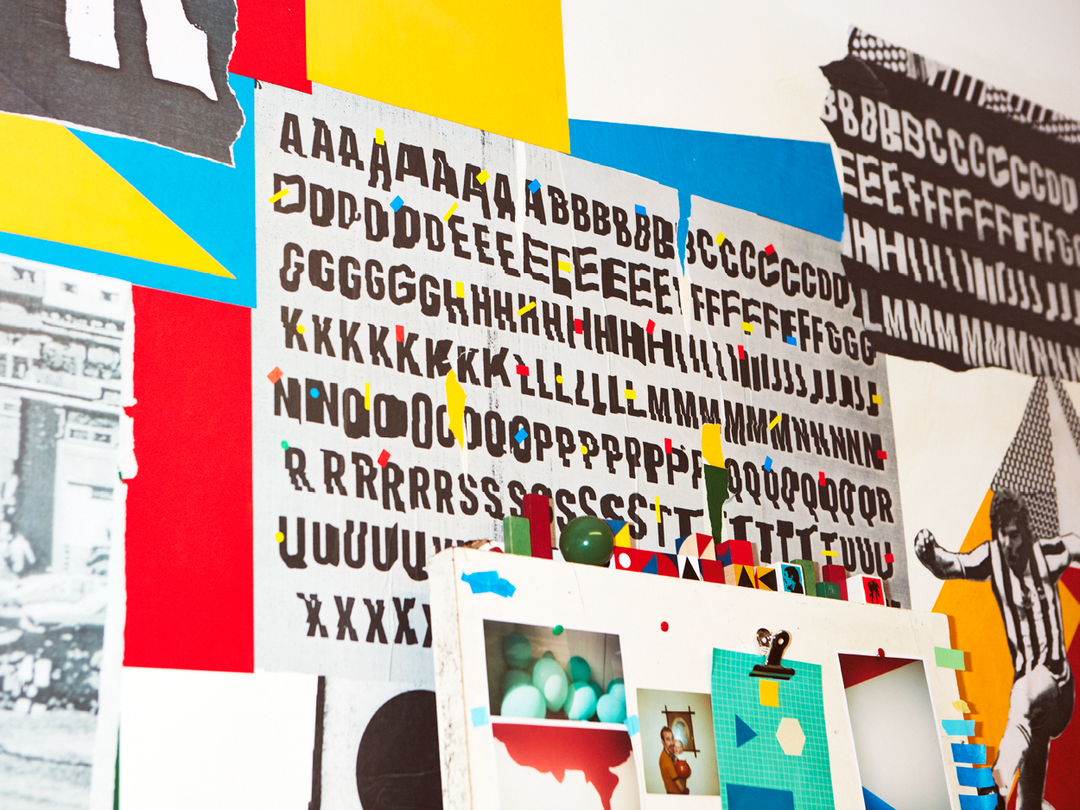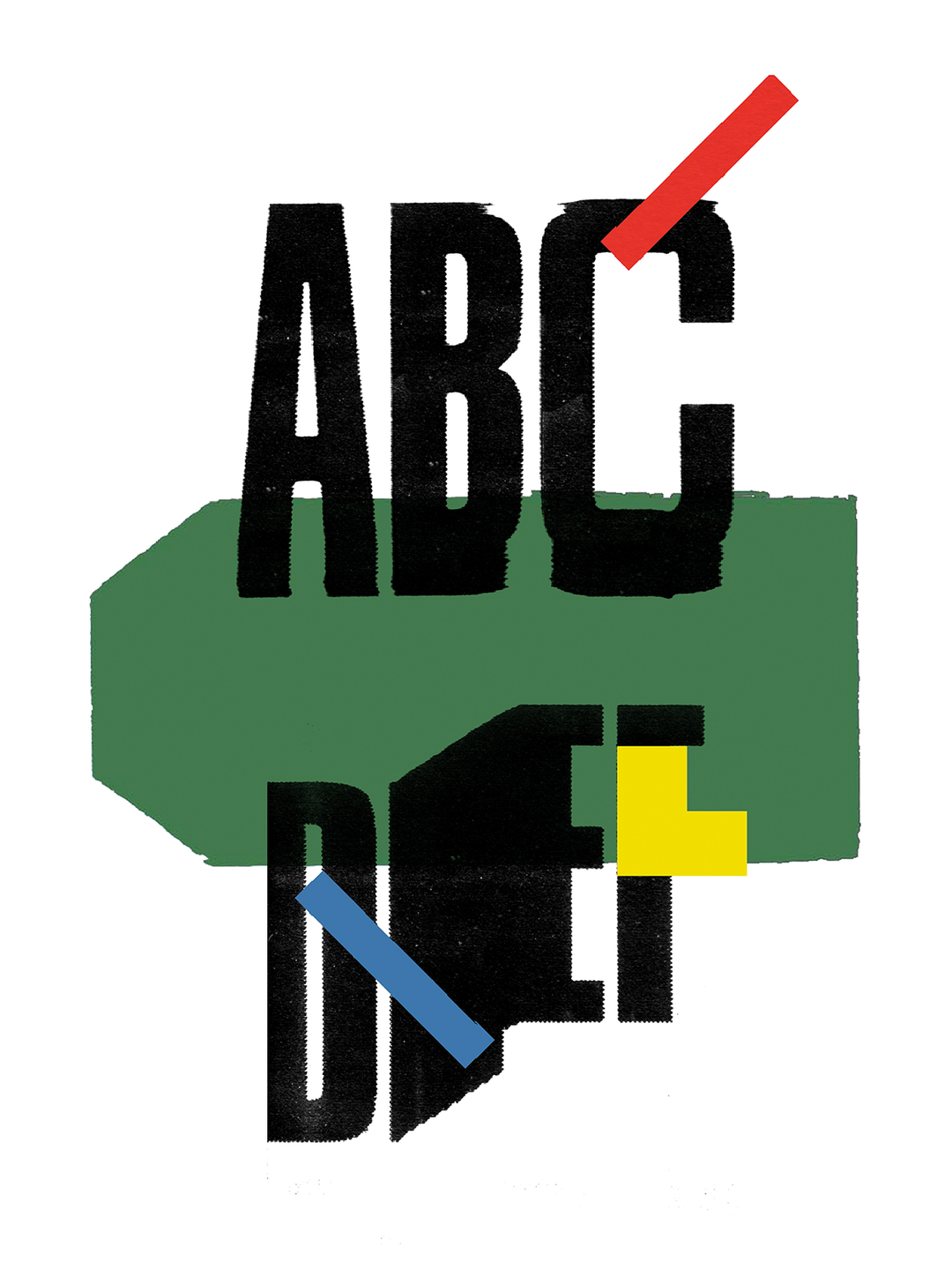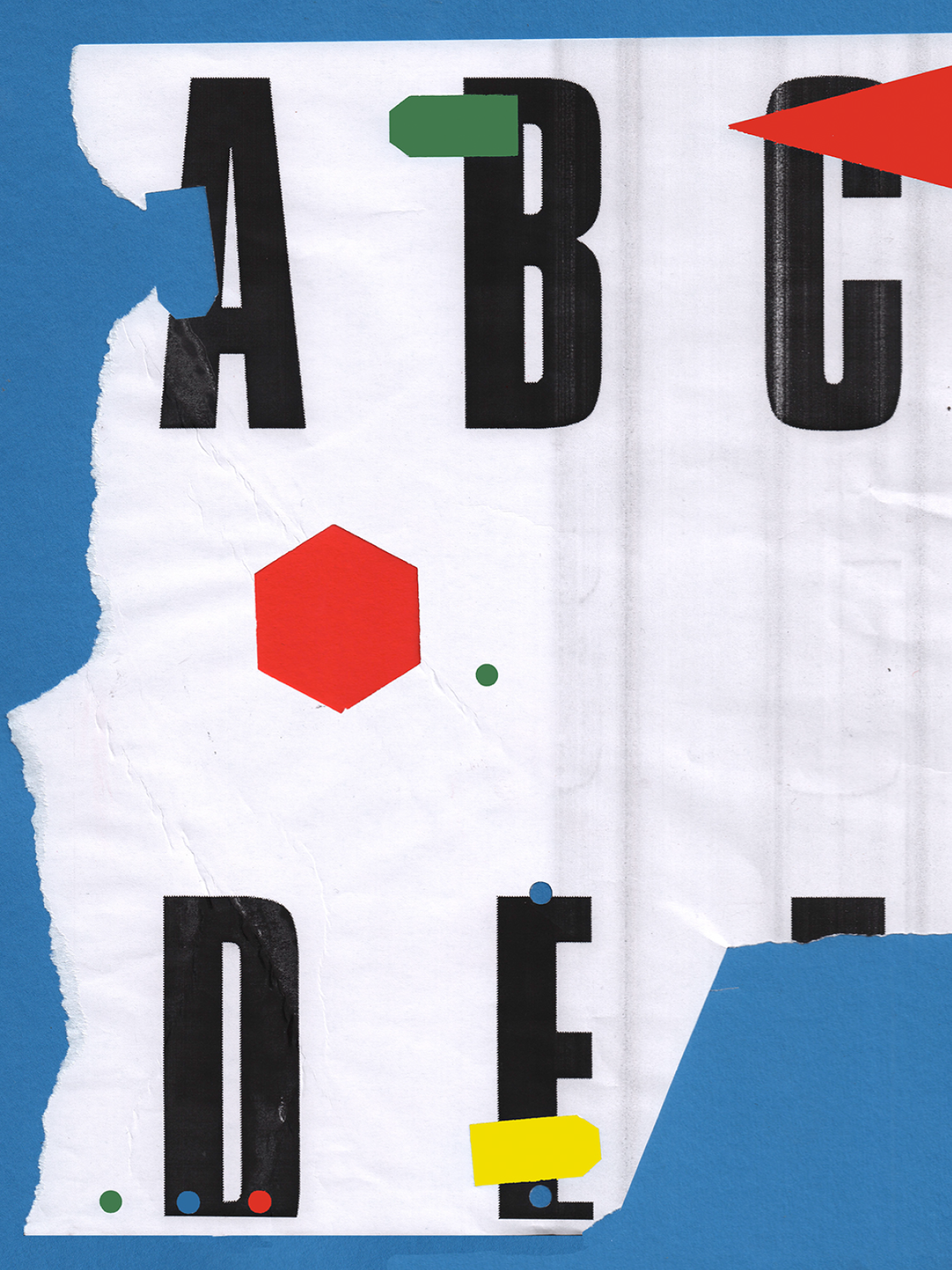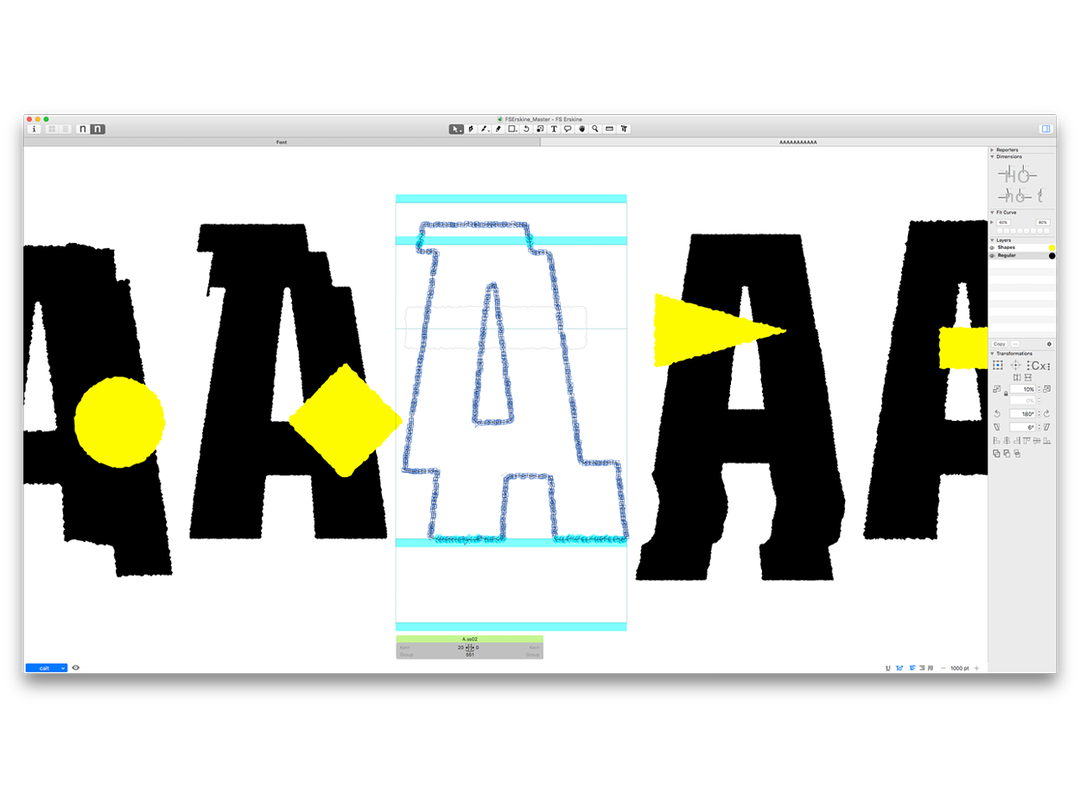
Local Characters: Jimmy Turrell creates a bespoke typeface inspired by Newcastle’s Byker Wall
This winter It’s Nice That commissioned three creatives to explore the broader possibilities of type, in partnership with Fontsmith. The result is Local Characters, a series of posters and typefaces inspired by each creative’s hometown. In our third article of the series, illustrator and designer Jimmy Turrell has designed a bespoke typeface in collaboration with Fontsmith on the Byker Wall, a council estate where he grew up in Newcastle Upon Tyne.
The Byker Wall, a council estate in the east end of Newcastle, is quite literally an architectural wall of housing. The estate curves around 200 acres of the northern city; 620 maisonettes capsuling a community. The term ‘wall’, could imply that these homes are shut away from the public eye, a private space. However, the socialist ethos of the Byker Wall, its architect and its inhabitants, couldn’t be further from this. Built from 1969–1982, the housing estate was designed and constructed by Ralph Erskine, a British-born architect who was fully involved in the idea, the construction, the immediate and continued success of the estate. From birth until the age of seven, the wall was home to illustrator and designer Jimmy Turrell. Its forward-thinking, primary-colour-clad construction and geometric forms has subtly informed his work ever since.
View from St Michael’s Church in Byker, Newcastle Upon Tyne
“The Byker Wall represents a dramatic break in the aesthetic and ethic that dominated the social housing of the sixties in the UK,” says Jimmy. “It rejects the architectural brutalism that dominated the rest of Newcastle at the time.” This rejection was a response to the leader of Newcastle City Council, T. Dan Smith, who had promised his constituency that the city would become the ‘Brasilia of the north’, “an ultra-modern Northern metropolis that would rival New York and Milan in its outlook,” explains Jimmy. Yet, in 1974 the councillor was prosecuted for corruption, leaving a mishmash of a city, “badly designed tower blocks and ugly concrete brutalist structures, many of which have since been demolished”.
Therefore, the Byker Wall represents true community-based architecture, from start to finish. Its architect, Ralph Erskine, was enlisted to construct a home in replacement of Victorian terraces in the east of Newcastle, deemed unfit for habitation. “Ralph Erskine was a planner, whose commitment to people-centred design was rooted in his parents Fabianism, his own Quakerism and Swedish social democracy,” Jimmy tells It’s Nice That. “His vision for Byker was for ‘a complete and integrated environment for living in the widest sense’.” His aim was fully achieved, but only by his own consistent and direct involvement. “He was a man of social democratic ways. His main concern was the people. He lived in the wall, he had his offices in the wall. He wasn’t the sort of guy based in London who just fucked off and left it. Erskine was intrenched in the whole thing.” With a background of socialist architecture in Sweden and Norway, Ralph Erskine’s approach was to speak to the community. “People were asked what sort of buildings they wanted to live in, he moved all of the people from the original terraced housing into the wall, onto the same streets they used to live, it was a totally new way of thinking.” The architect’s rejection of the failing familiar, coupled with an injection of community, care and colour, is the influence behind Jimmy’s bespoke typeface, FS Erskine.
Jimmy was born and bred in Newcastle-upon-Tyne, born in the hospital down the road from the wall, and his immediate family are situated within the wall. Despite moving a mile outside the estate at the age of seven, he continued to visit frequently. “My grandparents, my aunties and uncles, all lived in the wall,” he explains. “Up until I left Newcastle to go to university I visited there every week. When I was a young’un, we moved to an area which was a bit grey, dominated by brutalist architecture. To go back to the wall and visit my nan was an escapism. It is a soft place, like Lego.” This feeling of escapism was necessary during the eighties in Newcastle, he says. “It was certainly an interesting time to be alive,” says Jimmy. “It was pretty grim, a city of unrest and frustration. Thatcherite policies had pretty much killed the North East’s two main industries, coal mining and shipbuilding, the air was thick with a sense of negativity and false promises. The cities semi crumbling, grey concrete structures seemed to encapsulate the mood of the times.”
The enlightened change that the Byker Wall brought to the east end of Newcastle is visually representative in the shifting shape of Jimmy and Fontsmith’s typeface collaboration. Each letterform has between five and nine alternative shapes, jilted in “an analogy for how the Byker Wall was a rejection of what went before it in terms of brutalism,” explains Jimmy. The designer’s initial idea was to implement a fluctuation through type, conveying that he lived in the wall while parts were still under construction. “It felt like a giant kid’s playground, piles of rubble and coloured brick everywhere, half built houses to explore and play in, with the added incentive of getting chased by the building sites ‘watchy’ at the end of the day”. From this initial concept Jimmy began to disturb classic brutalist typefaces, simply by using a photocopier to scan signage he found in a skip outside an estate of sixties flats in Scottsdale.
Following Jimmy’s visual references Fontsmith designer Krista Radoeva began to focus on one idea to create FS Erskine as a fully functioning font. “We loved the textures in his work, the feeling of randomness in all the cut-up pieces and the layering,” she explains. “This was the big challenge – How do we produce a functional digital font that incorporates all of these features?” But Krista solved the problem, experimenting with a couple of letters, “I wanted to create several alternatives for each character, and to make them switch automatically in a random way, which involved a lot of OpenType feature testing”. The result is a typeface with up to 9 alternate versions of each character, set on a ‘bouncing baseline’ to give “shifting vertical positioning of the characters helping to improve the feel of randomness”.
“The next step was adding the second layer of geometric shapes, and adding the ragged edges to all outlines, again to keep in line with Jimmy’s visuals,” Krista tells It’s Nice That. “The texture is also slightly different across the whole typeface – some characters are rougher at the edges than others.” Overall, the difference in creative approach between Jimmy and Krista contributes to the success of the typeface, “his analogue techniques challenged our digital approaches and pushed us in a direction that we rarely get to explore,” she explains. “In the end all the elements came together to represent the spirit of the Byker Wall. I was really excited to see the typeface in use and how it compliments Jimmy’s work.”
Specimen sheet of FS Erskine
On top of creating between five to nine differentiating type designs for each letterform, Jimmy and Fontsmith modified the typeface with primary coloured geometric shapes. This added a tangibility to the typeface reminiscent of the Lego-like texture and colour palette Jimmy remembers from his childhood. This cut and paste mentality additionally symbolises the designer’s day-to-day practice. Despite studying graphic communication at Central Saint Martins, Jimmy explains that digital design has never been his strength. “I was so shit on the computer, I can still barely use Photoshop and to me Illustrator is just random signs. I left university with a Pritt stick and scissors, I became an illustrator by hook or by crook.” These interruptions, the up and down disposition of the typeface was an idea of Jimmy’s to visualise the tone of the Geordie accent. “There is no accent in England that has people scratching their heads more than ours!”
Since the typeface’s completion, its characteristics that resemble the wall have caused Jimmy to reflect on his previous work. “It made me challenge and think about what I use myself, certainly in terms of what colours I use, I’ve even been using geometric shapes all this time!” he explains. “It has all been planted there from when I was a kid, the first place I ever lived has become very influential in my approach to creating things. I didn’t really realise this until I examined this brief. To say that the look and the feel of the wall has left a lasting mark on me is huge understatement.”